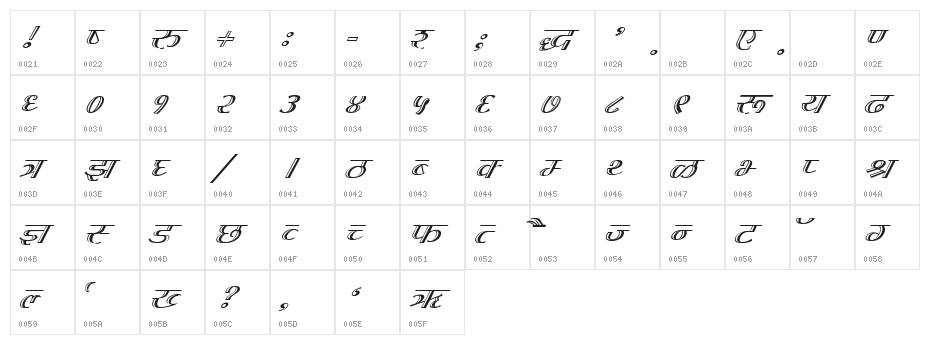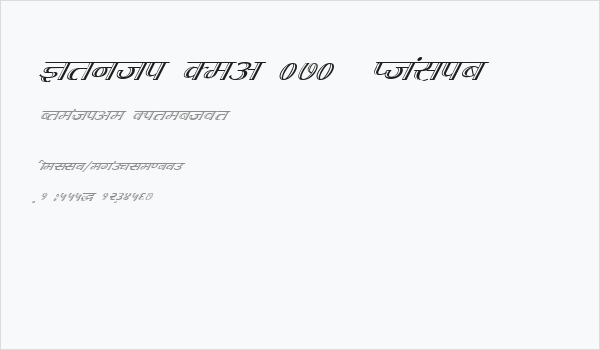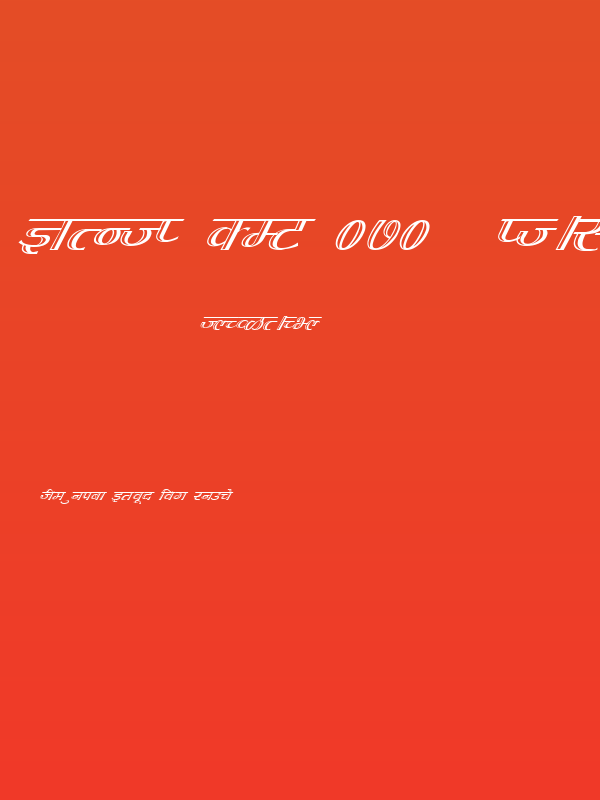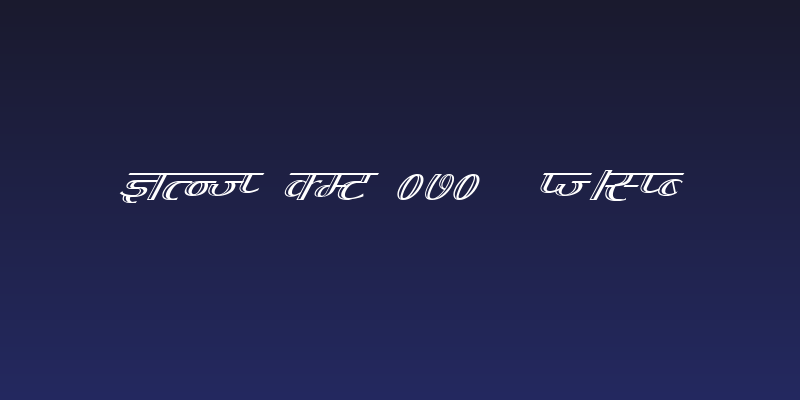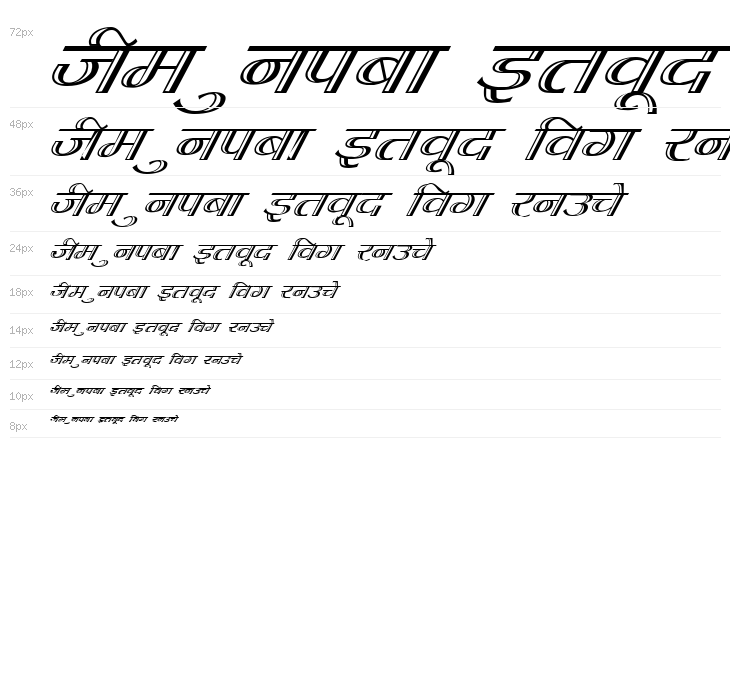
Kruti Dev 070 Italic Font
Kruti Dev 070 Italic Description
This font is a stylized Devanagari script with a distinct italic slant, giving it a dynamic and flowing appearance. The characters are elegantly curved with a consistent stroke width, providing a harmonious and balanced look. The script maintains traditional Devanagari elements while incorporating a modern twist through its italicization. The numerals and special characters are designed to complement the overall style, ensuring readability and aesthetic appeal. This font is suitable for projects that require a blend of traditional and contemporary design elements.
| Use Case | Headlines, Artistic projects, Cultural publications |
| Proposed Projects | Ideal for cultural publications, artistic projects, and modern design works that incorporate traditional Indian scripts. |